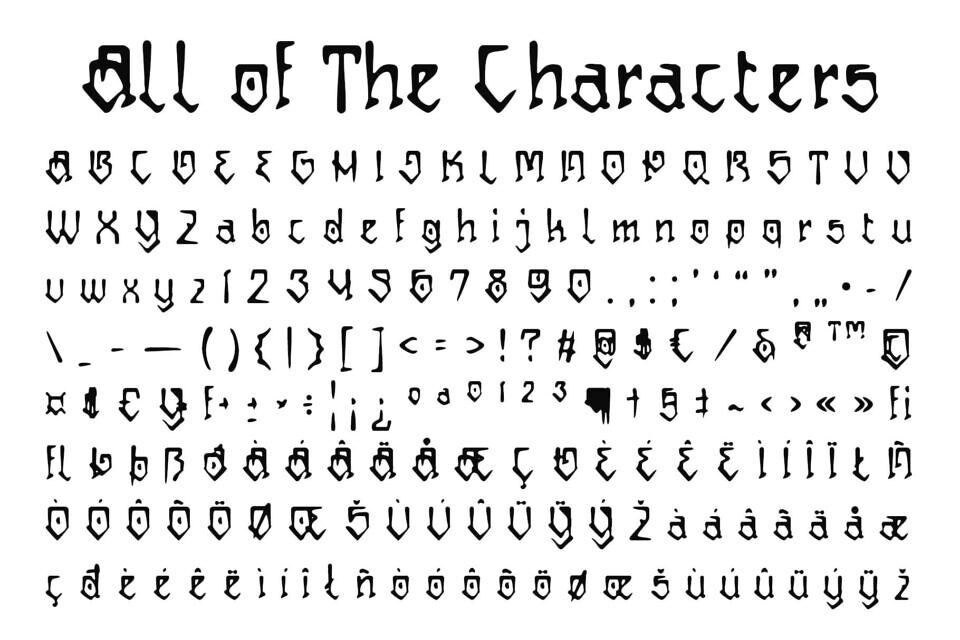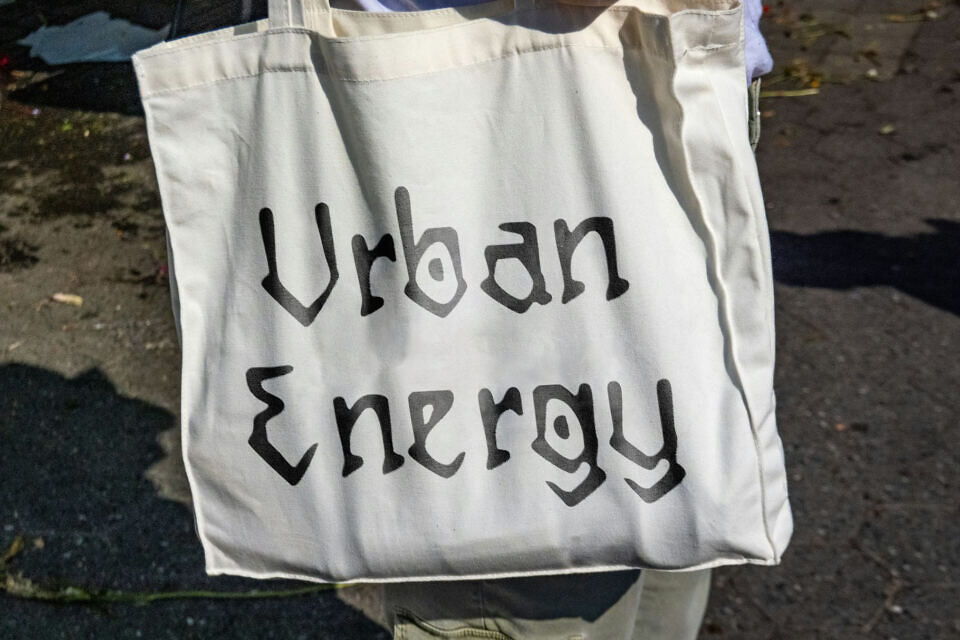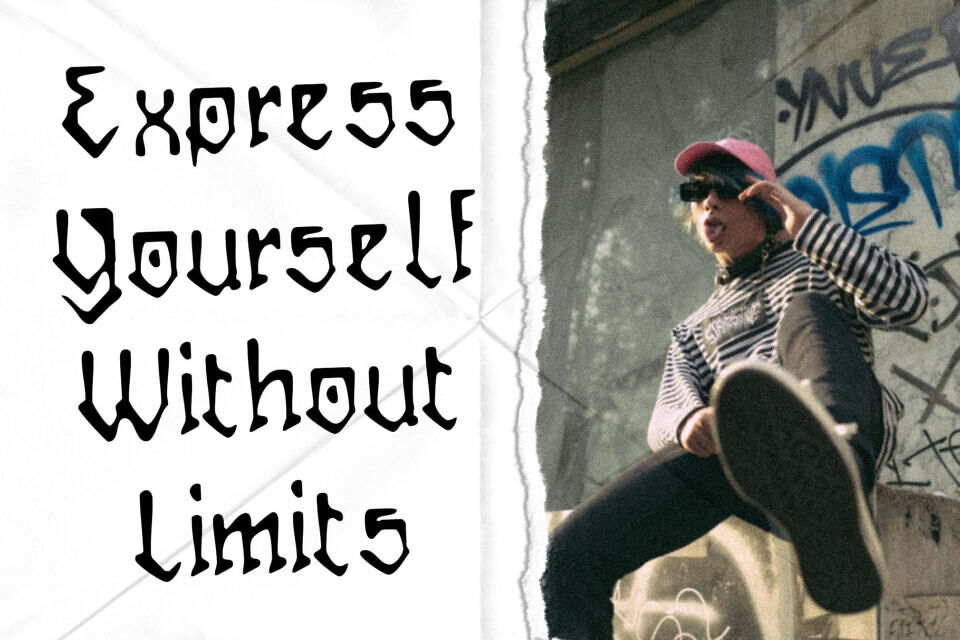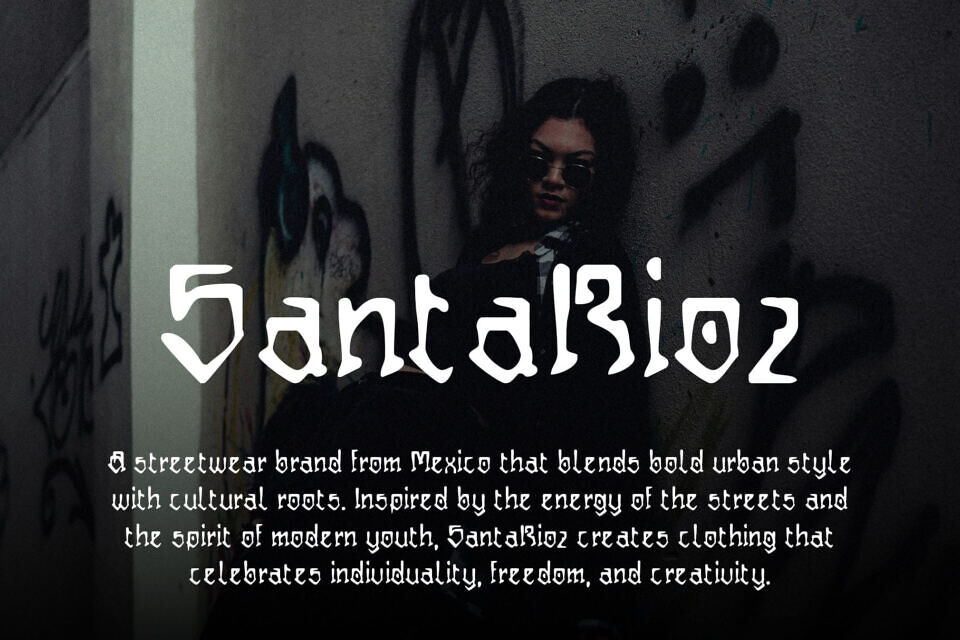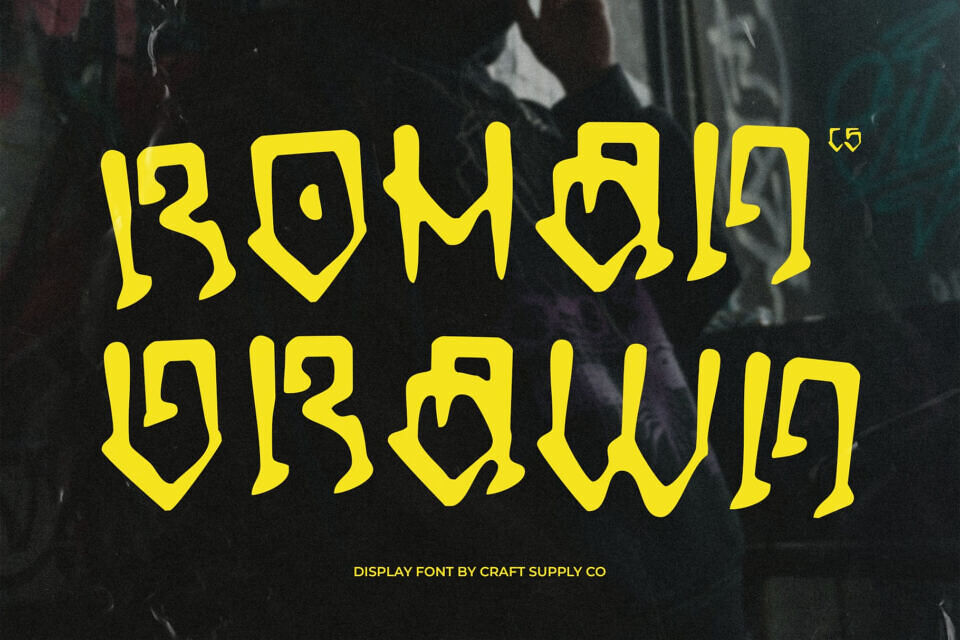
Cs Rohan Drawn Font
CS Rohan Drawn is a display font inspired by Chicano graffiti, featuring bold, decorative strokes and a funky, energetic vibe. Its urban style makes each letter feel dynamic, expressive, and visually captivating.
Enhanced with a drawn effect, each character gains a handcrafted texture that adds individuality and artistic flair. This artistic font combines graffiti-inspired shapes with playful, unconventional styling. Its expressive letterforms convey energy, creativity, and attitude, making every design bold and memorable.